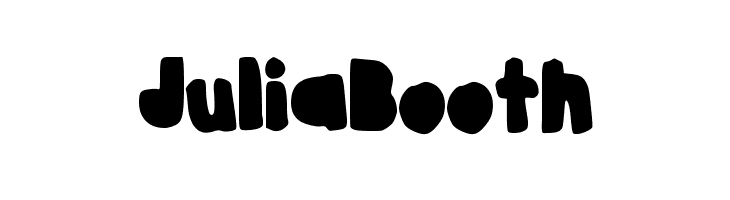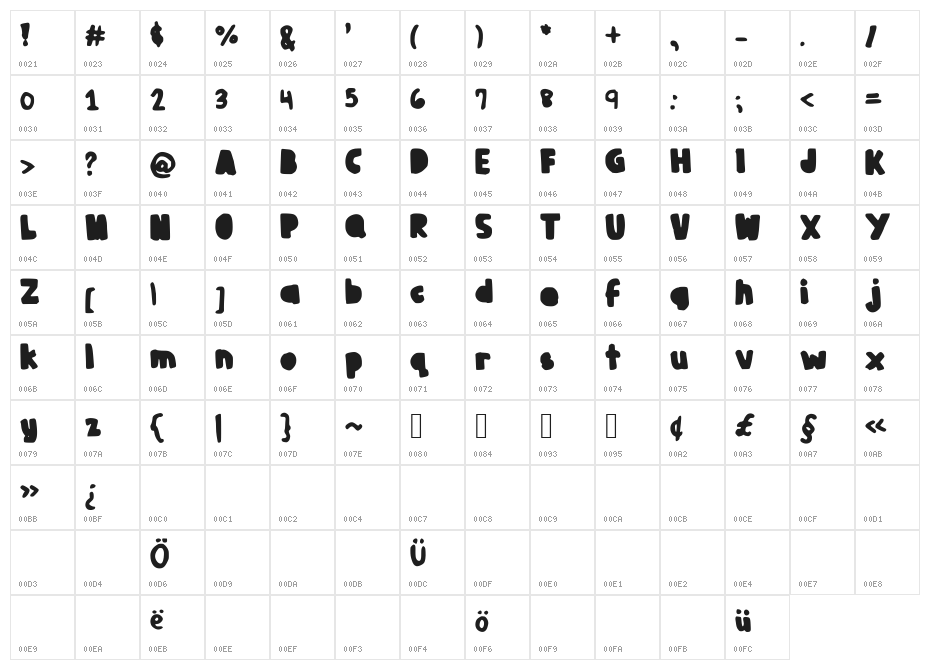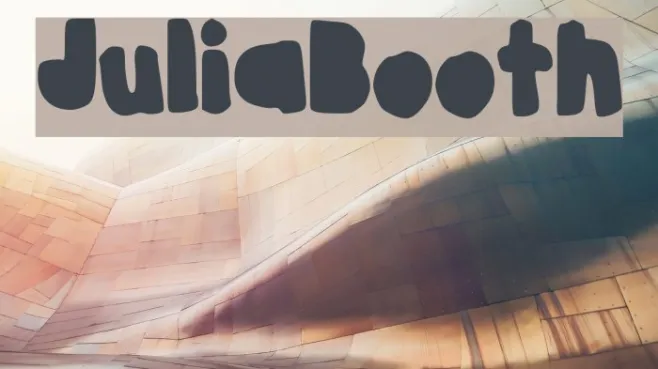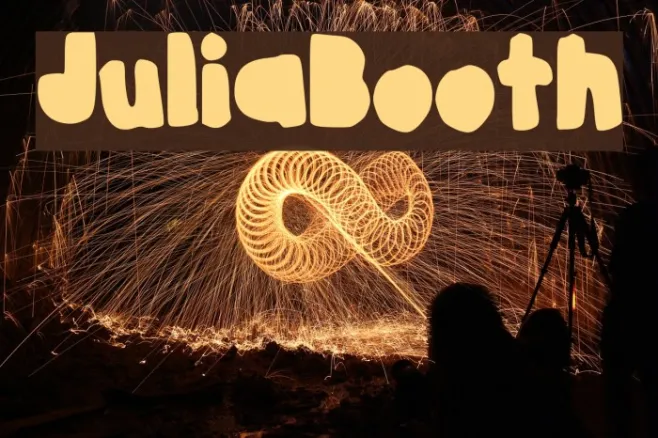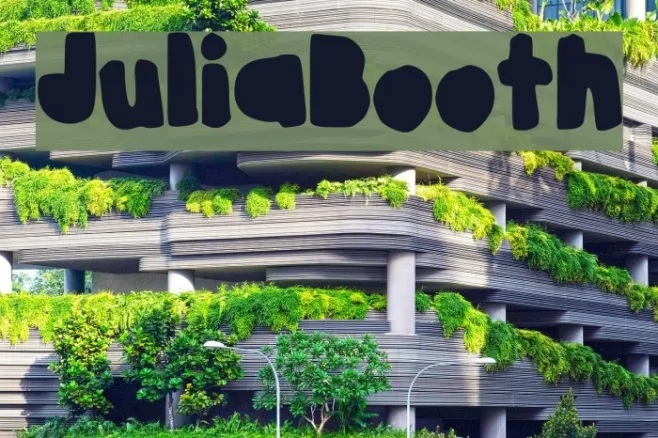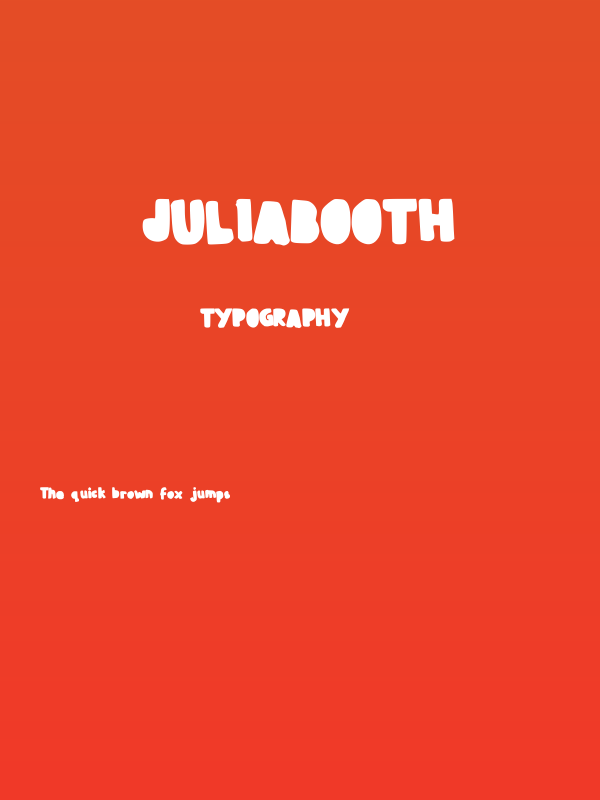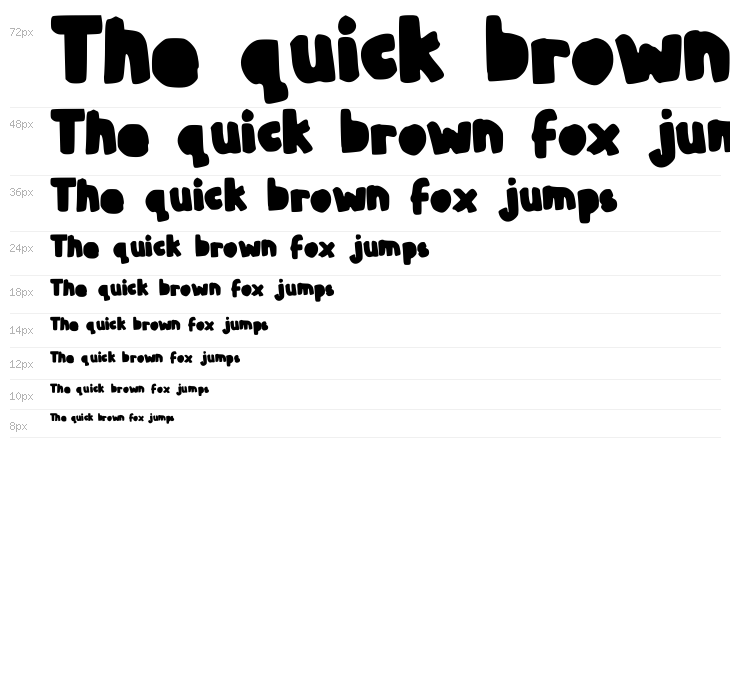
JuliaBooth Font
JuliaBooth Description
This playful and bold font features thick, rounded characters that convey a sense of fun and creativity. The letters are uniformly heavy, with a slightly irregular shape that adds a whimsical touch. The font maintains a consistent weight throughout, ensuring readability while offering a unique visual appeal. Its exaggerated curves and soft edges make it ideal for projects that require a friendly and approachable aesthetic. The numbers and special characters are designed to match the playful style, ensuring a cohesive look across all text elements.
| Proposed Projects | Perfect for children's books, playful branding, party invitations, and creative posters. |